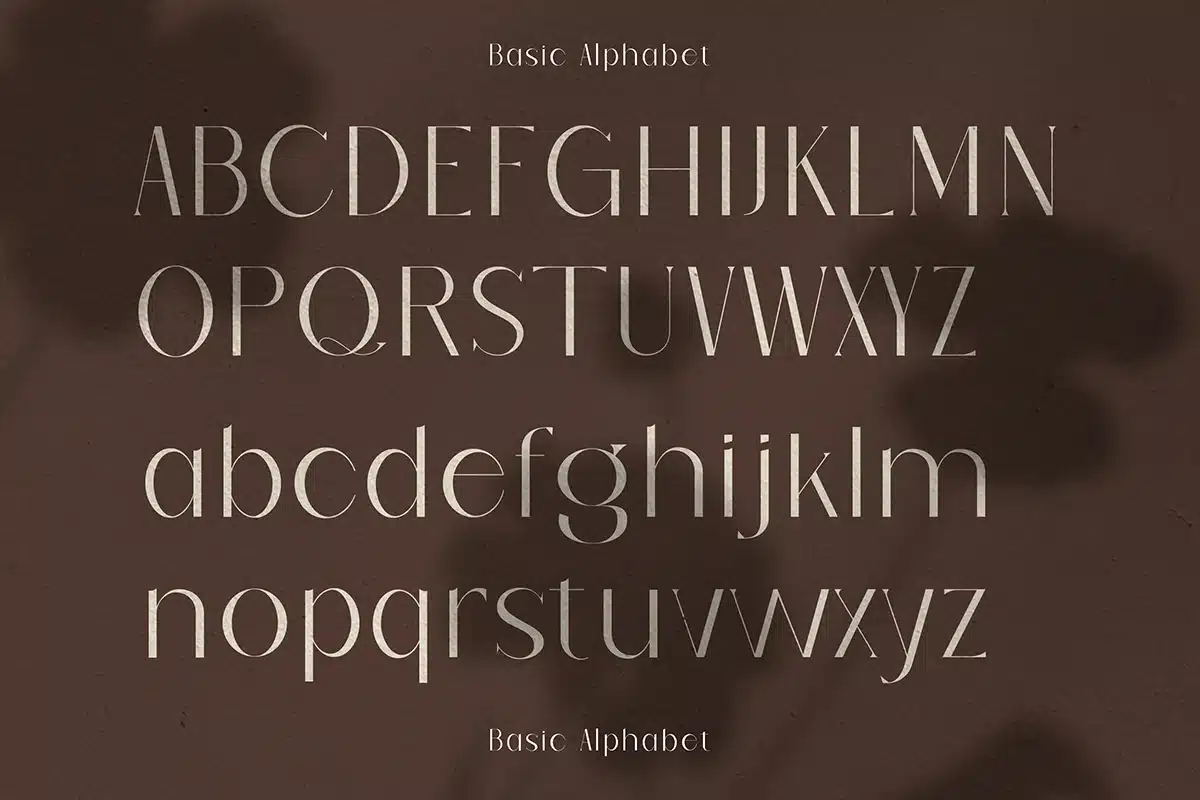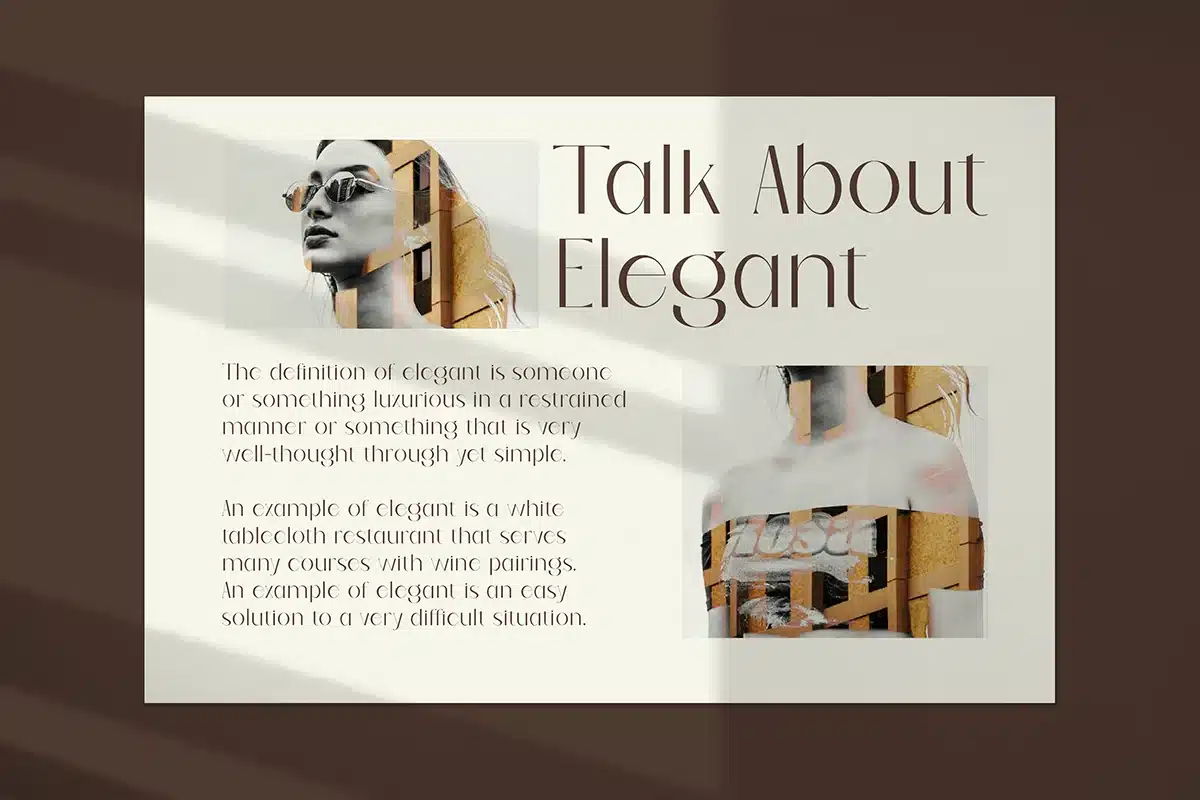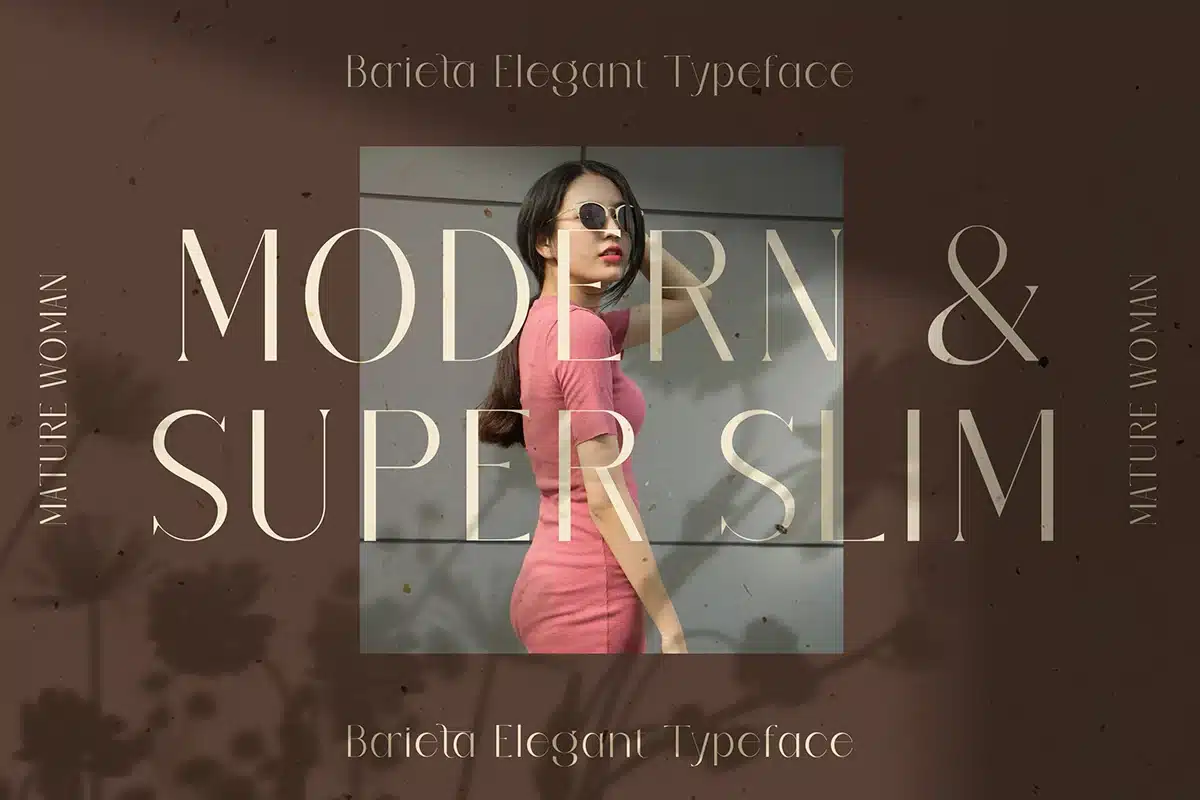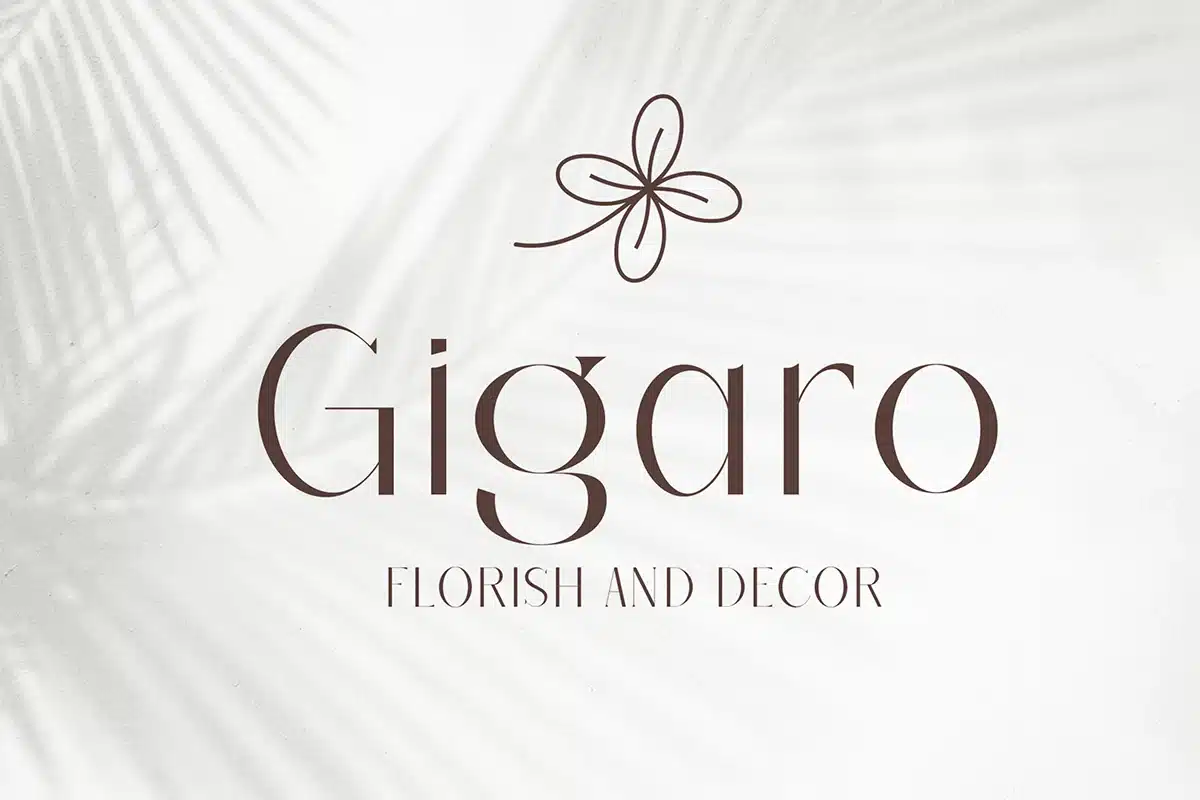
Barieta Elegant Typeface Font
Barieta Elegant Typeface Barieta is a super thin and stylish modern Look Font, this font is made for those of you who like unusual styles, Barieta font is excellent for big logo and headline design projects, This Barieta font consists of uppercase, lowercase, and numbers and supports other languages.
There are several alternative styles of letters ( A, B, O, V)
vital Records The recommended minimum size is 18 pt not less than 18 pt because this font is so thin that it cannot be read clearly